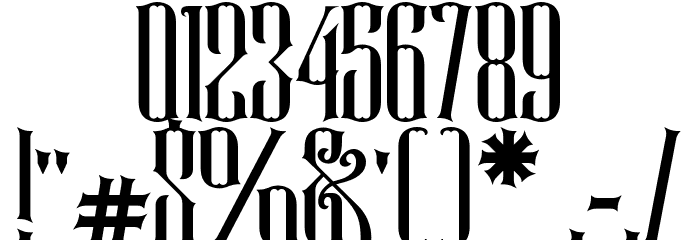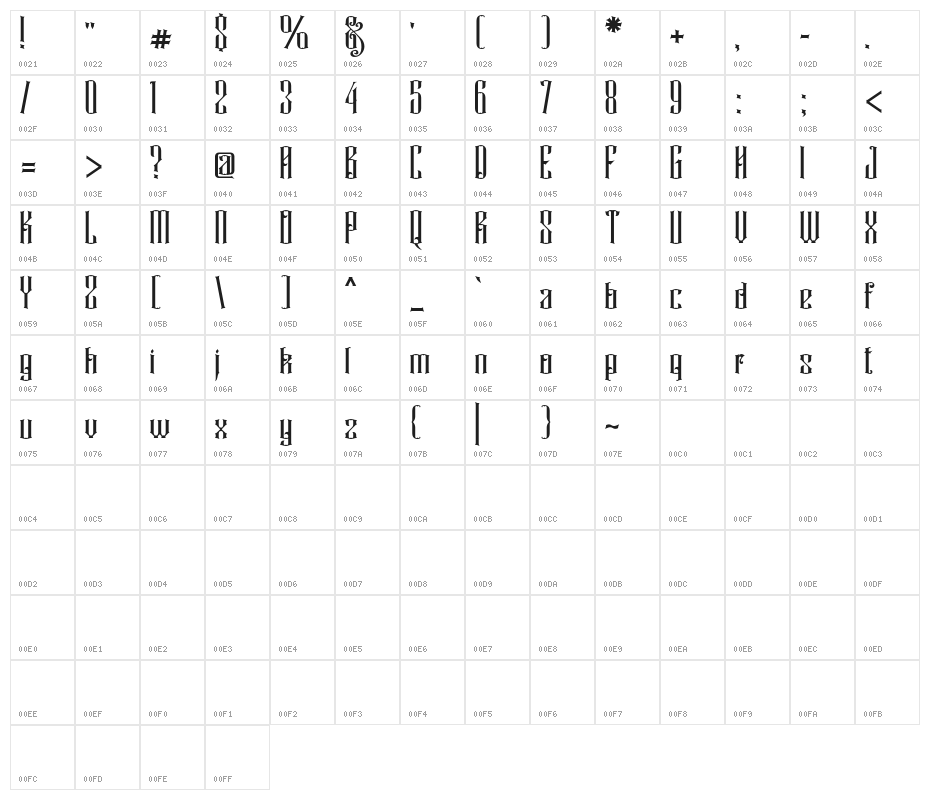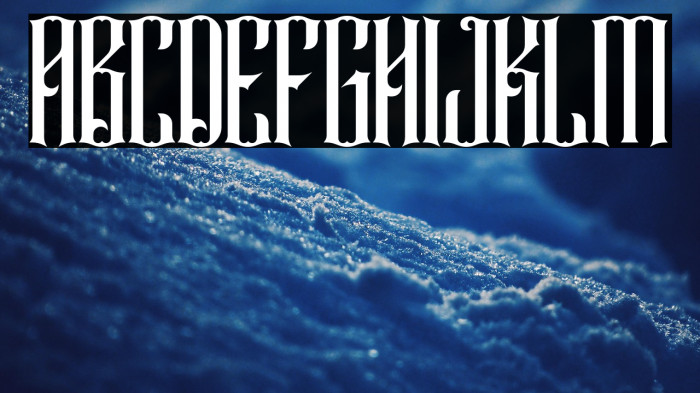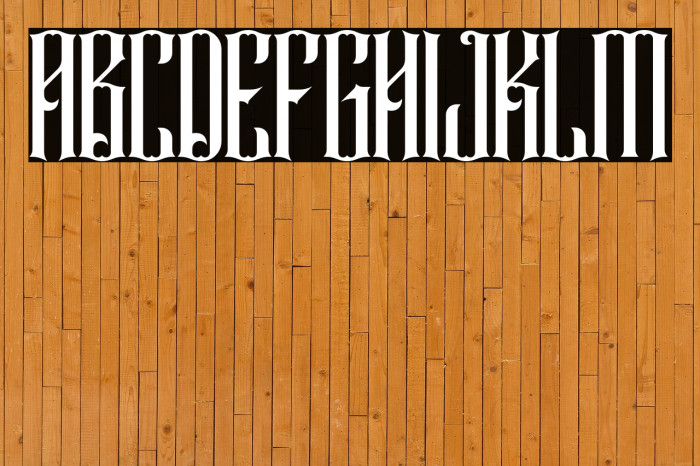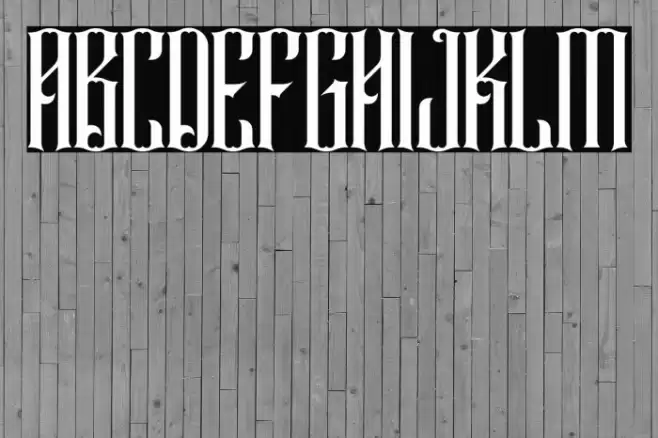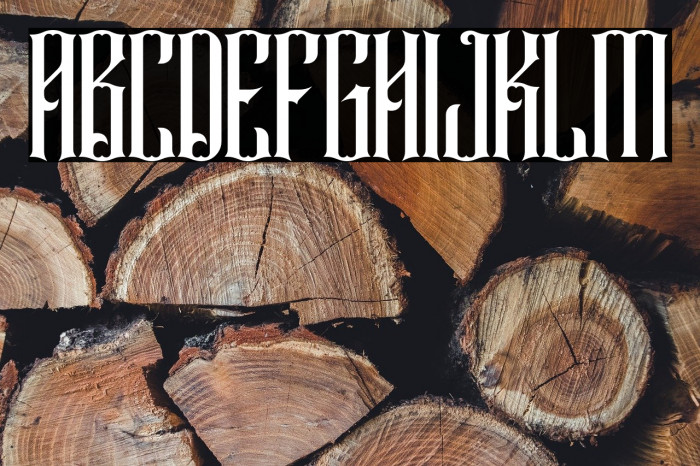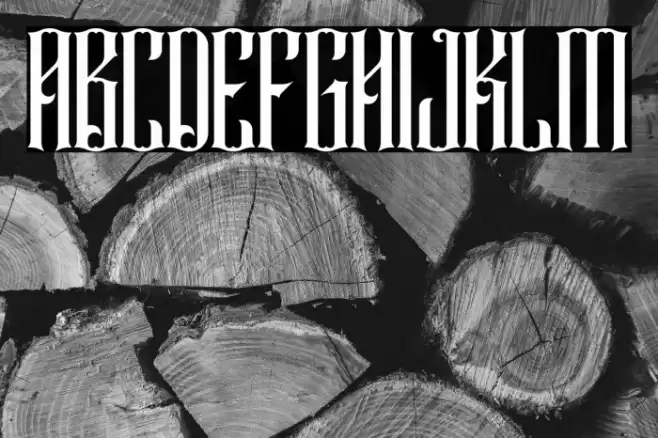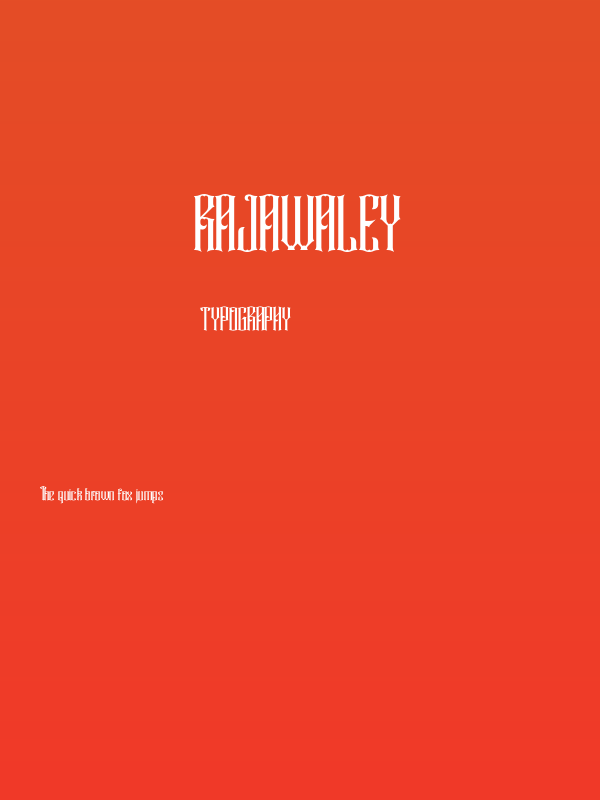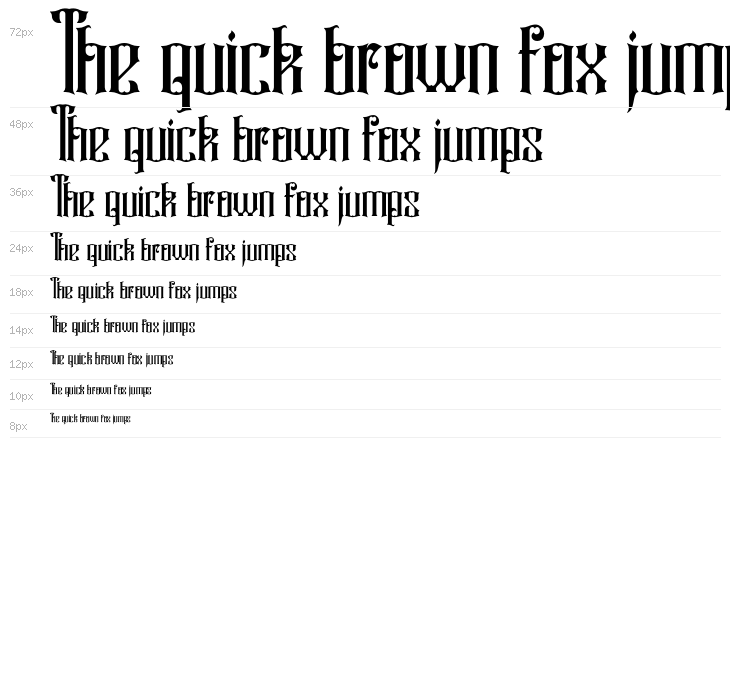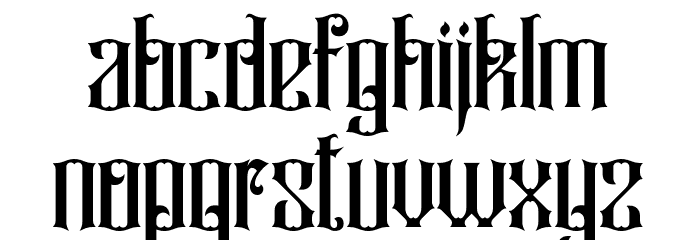
Rajawaley Font
Rajawaley Description
This font exhibits a striking blackletter style, characterized by its bold, angular lines and intricate detailing. The uppercase letters are tall and narrow, with sharp serifs and a gothic flair that evokes a sense of tradition and formality. The lowercase letters maintain the same gothic essence, with a slightly more condensed form, enhancing readability while preserving the ornate style. Numbers and special characters follow the same design principles, ensuring consistency across all glyphs. This font's dramatic appearance makes it ideal for projects that require a historical or medieval touch.
Overall StyleVintage
Use CaseLogos, Headlines, Decorative text
Proposed ProjectsIdeal for historical documents, medieval-themed designs, book covers, and decorative posters.